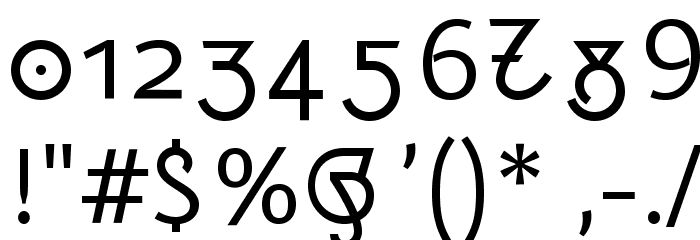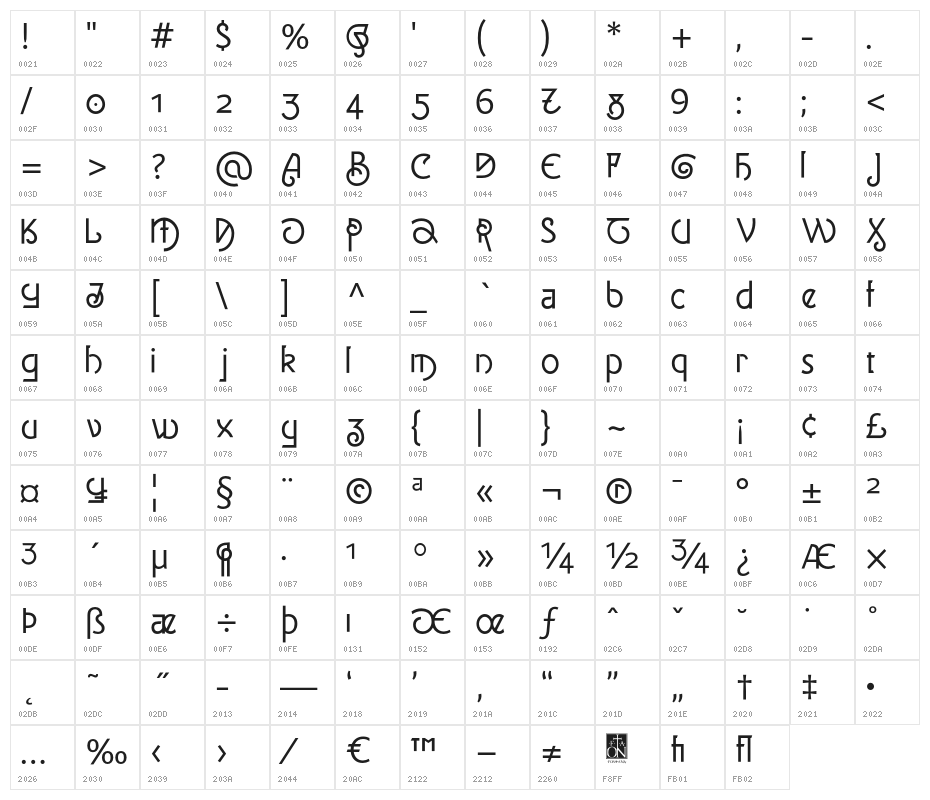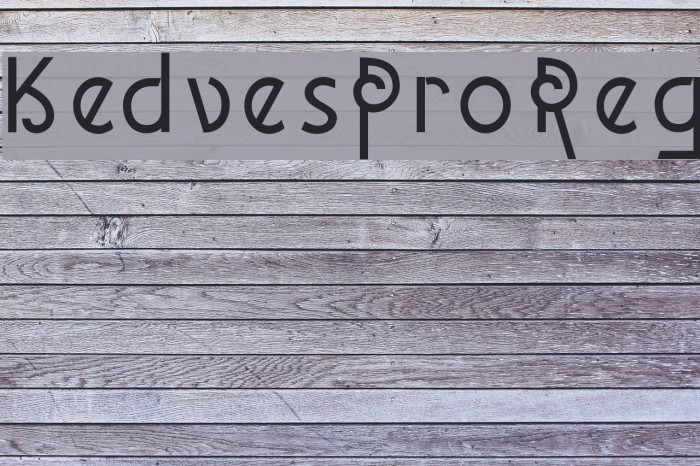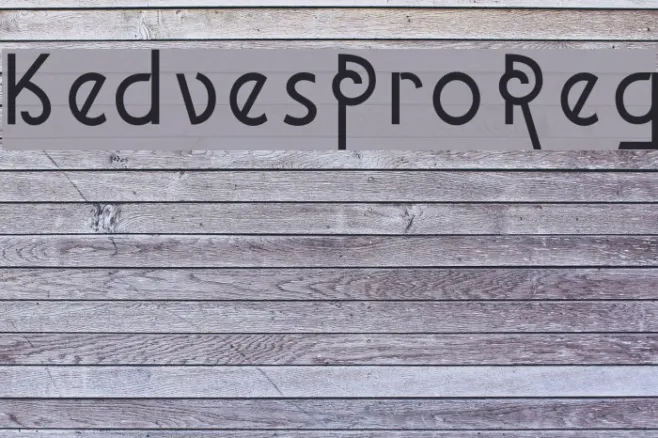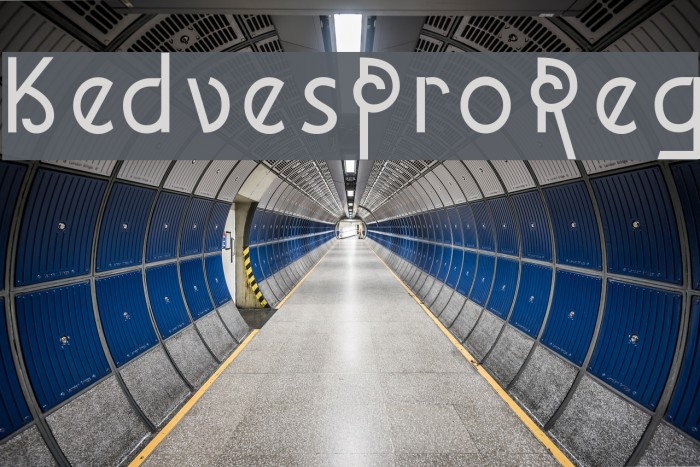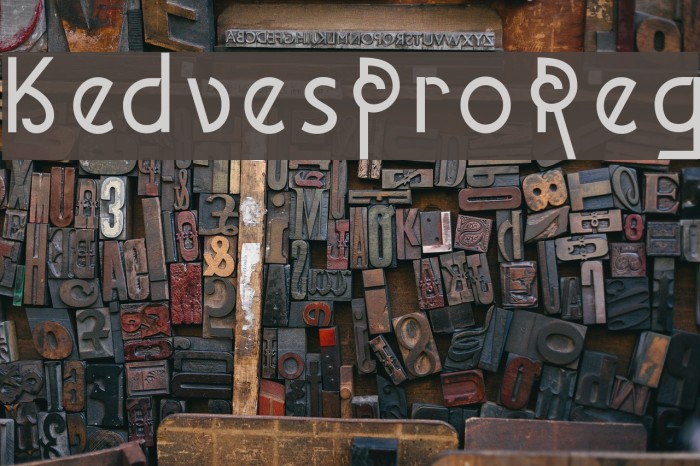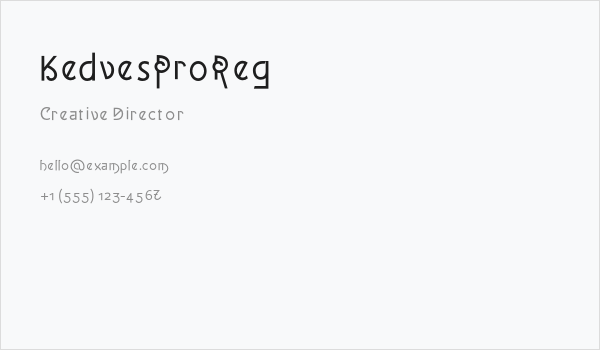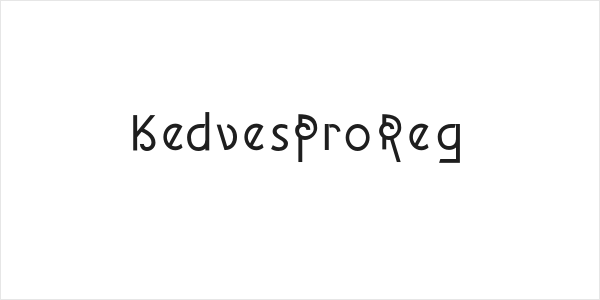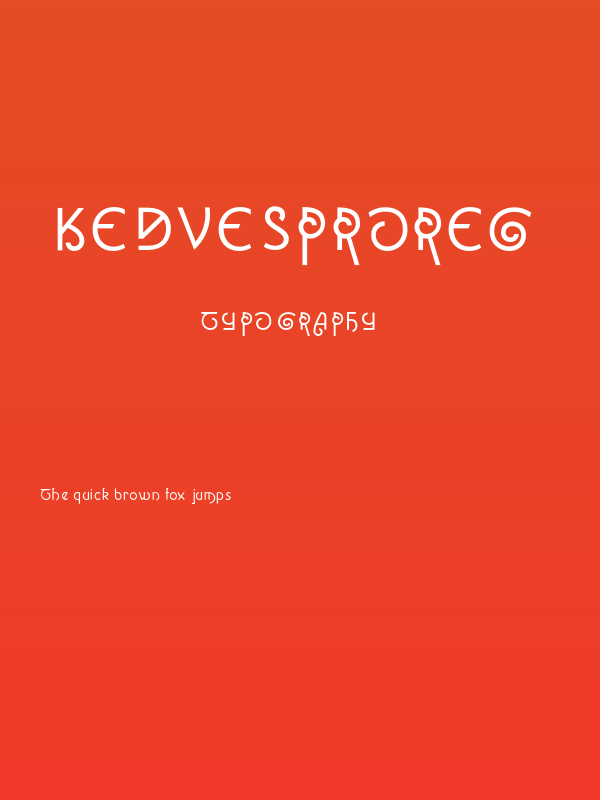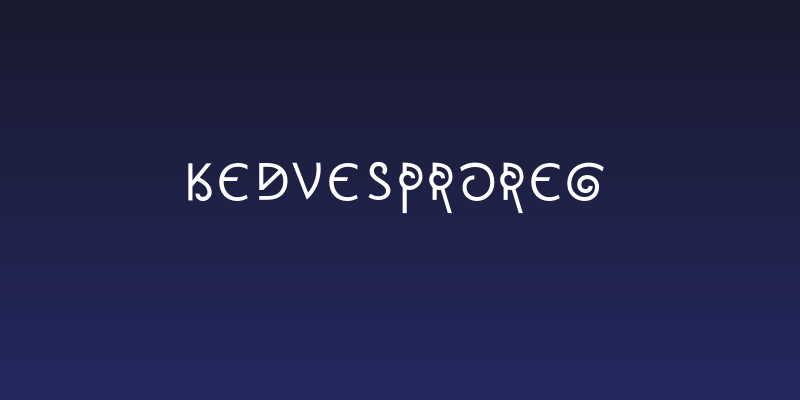
KedvesProReg Font
KedvesProReg Description
This font features a unique and playful design with a modern twist. The characters are crafted with a combination of geometric shapes and smooth curves, giving it a distinctive and artistic appearance. The uppercase letters have a bold presence, while the lowercase letters maintain a consistent style with subtle variations. Numbers and special characters are designed to complement the overall aesthetic, adding to the font's versatility. The font's style is both decorative and functional, making it suitable for a variety of creative projects.
| Proposed Projects | Ideal for branding, posters, invitations, and creative design projects. |